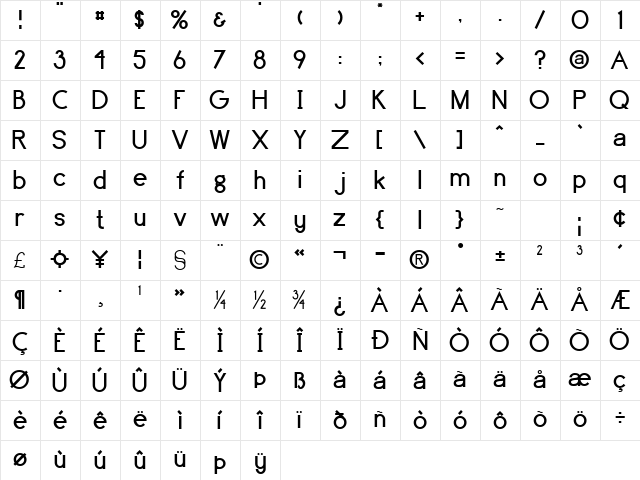
Brassfield Regular
Brassfield Family
Brassfield Regular
Design Context for Brassfield
Brassfield is a composed and adaptable typeface that performs quietly and consistently across a wide range of design contexts.